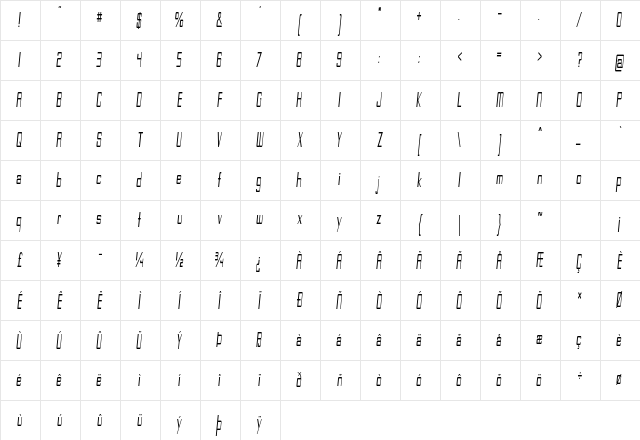
Riteon Extra-condensed Italic
Style: Extra-condensed Italic
Riteon Family
Riteon Extra-condensed Italic
Design Context for Riteon
Riteon is a composed and adaptable typeface that performs quietly and consistently across a wide range of design contexts. The slanted form adds forward momentum and visual energy. Its narrow stance lets it pack a punch even in space-constrained designs.